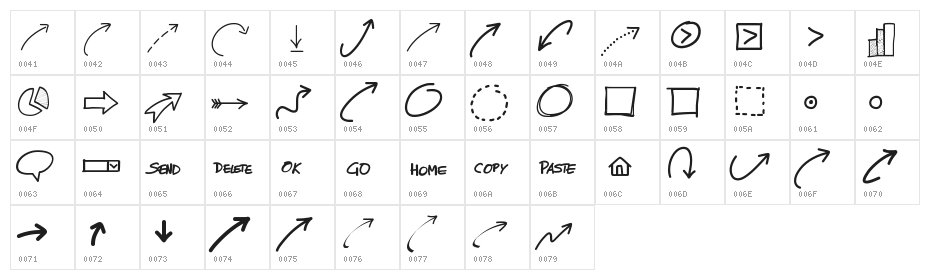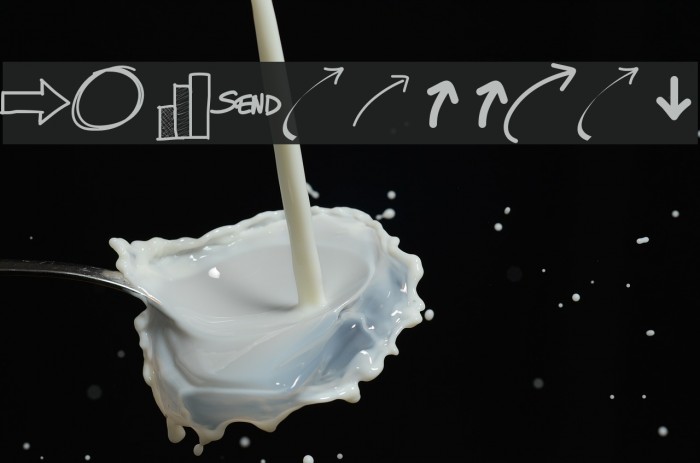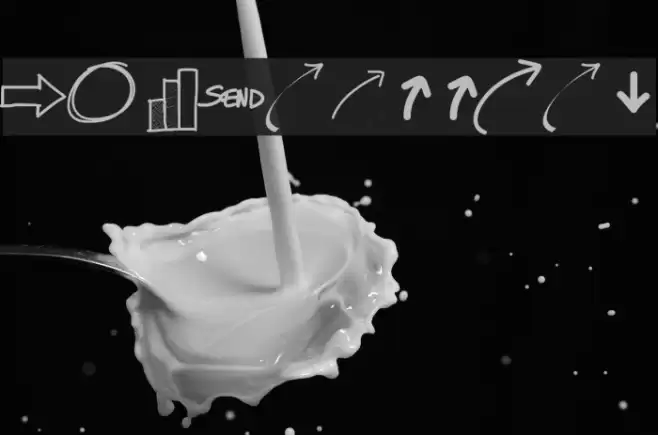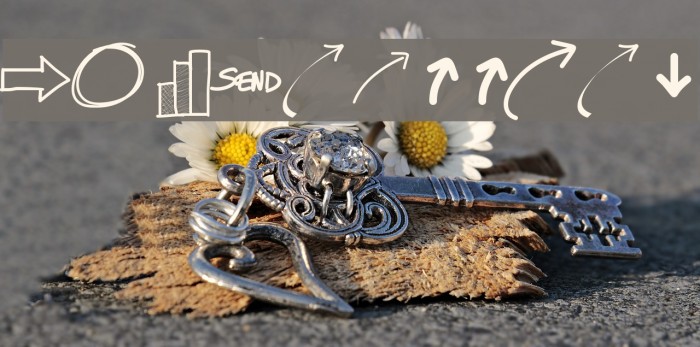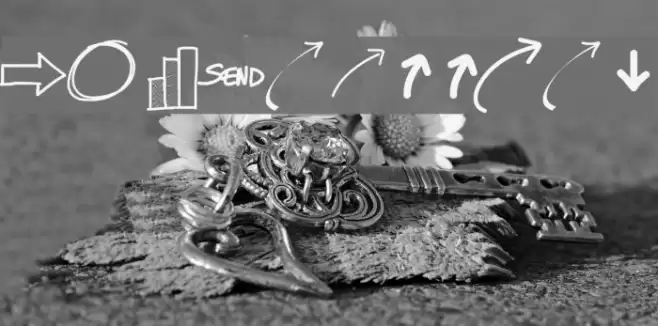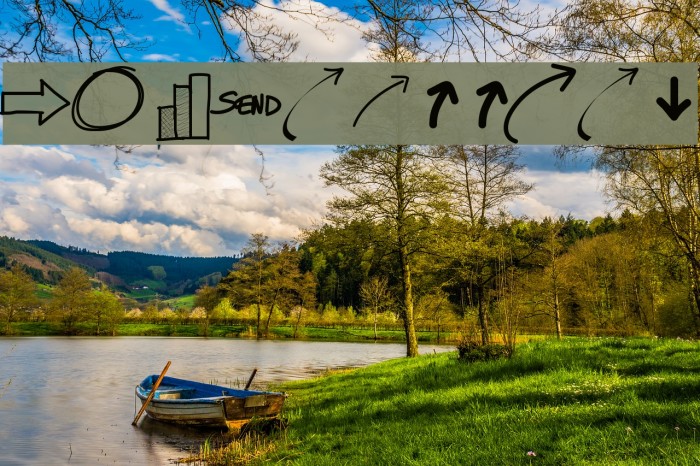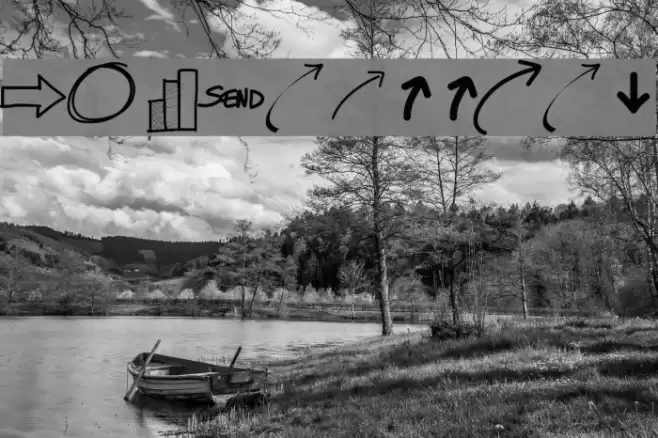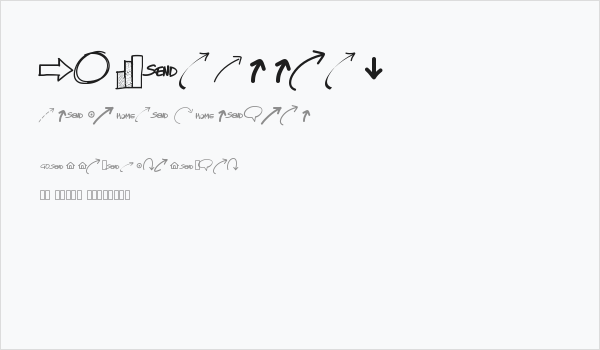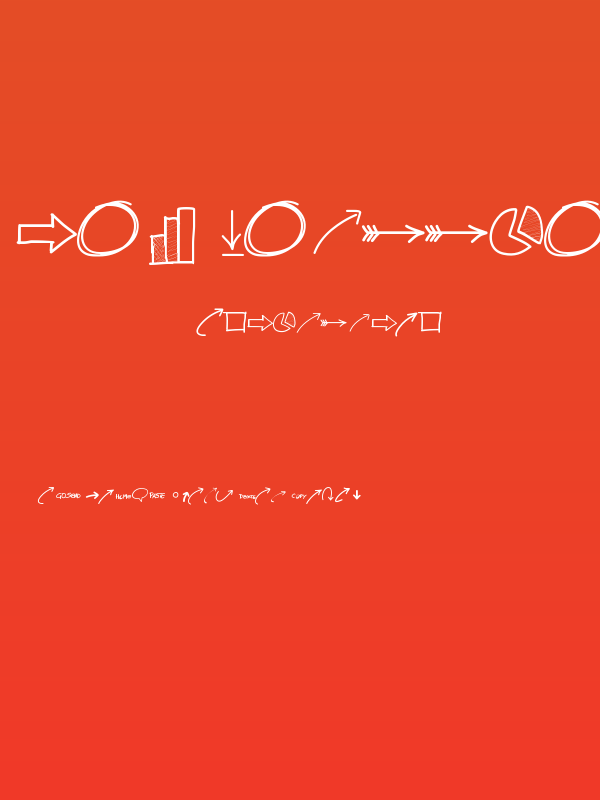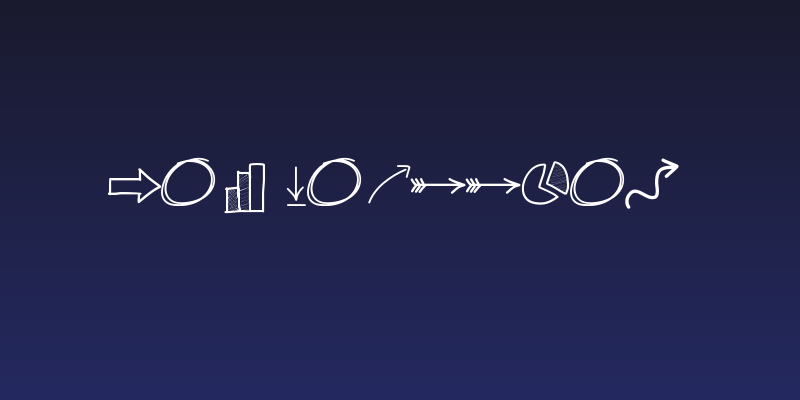
PWNewArrows Font
PWNewArrows Description
This collection features a variety of hand-drawn arrows and symbols, each with a playful and informal style. The arrows vary in direction and curvature, providing a dynamic range of options for indicating movement or direction. The symbols include basic shapes, speech bubbles, and common interface icons like home and send, all rendered in a sketch-like manner. The overall aesthetic is casual and approachable, making it suitable for projects that require a personal touch or a less formal presentation.
| Use Case | Icons, Decorative elements, Informal presentations |
| Proposed Projects | Ideal for educational materials, informal presentations, creative projects, and user interface design where a personal and approachable style is desired. |